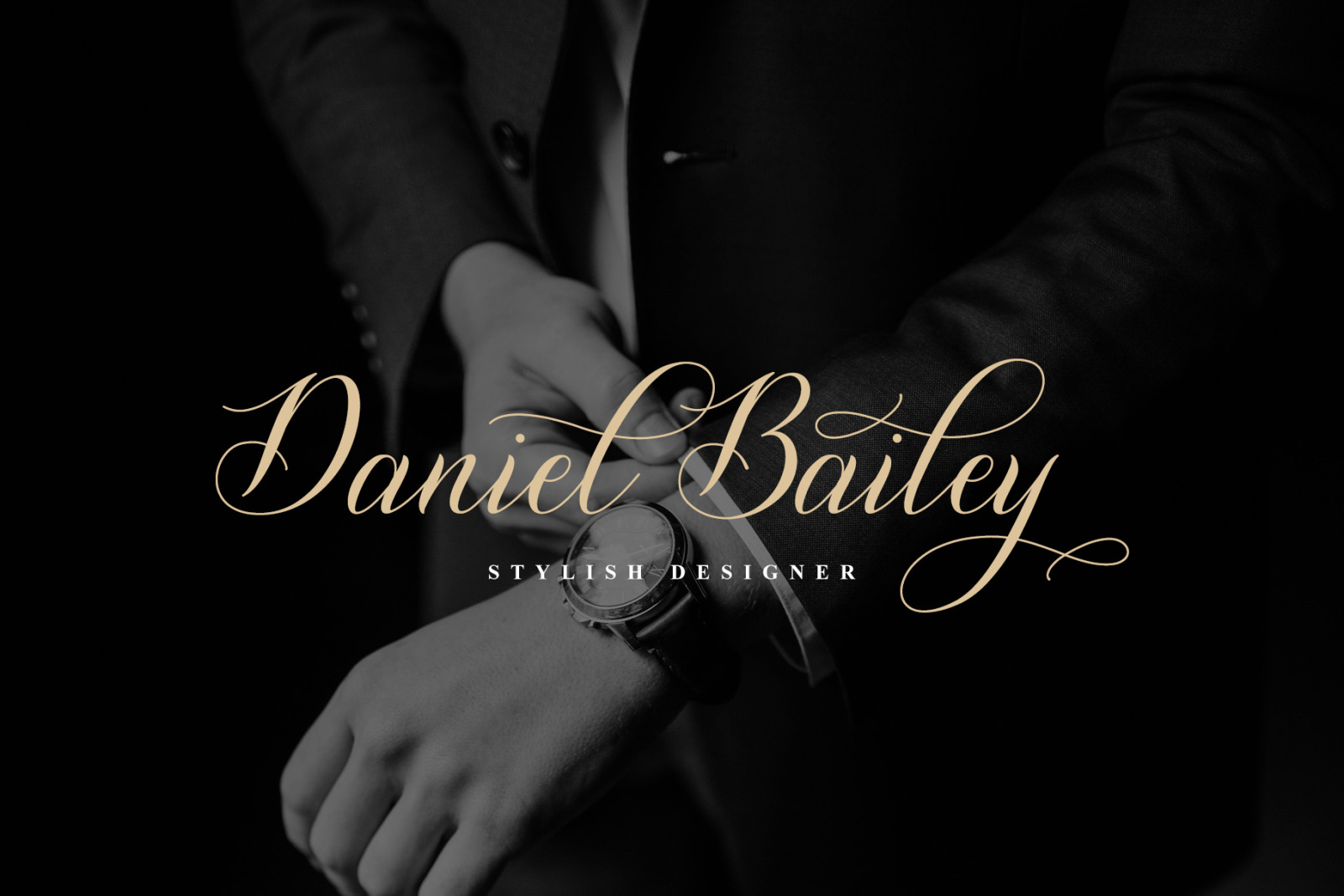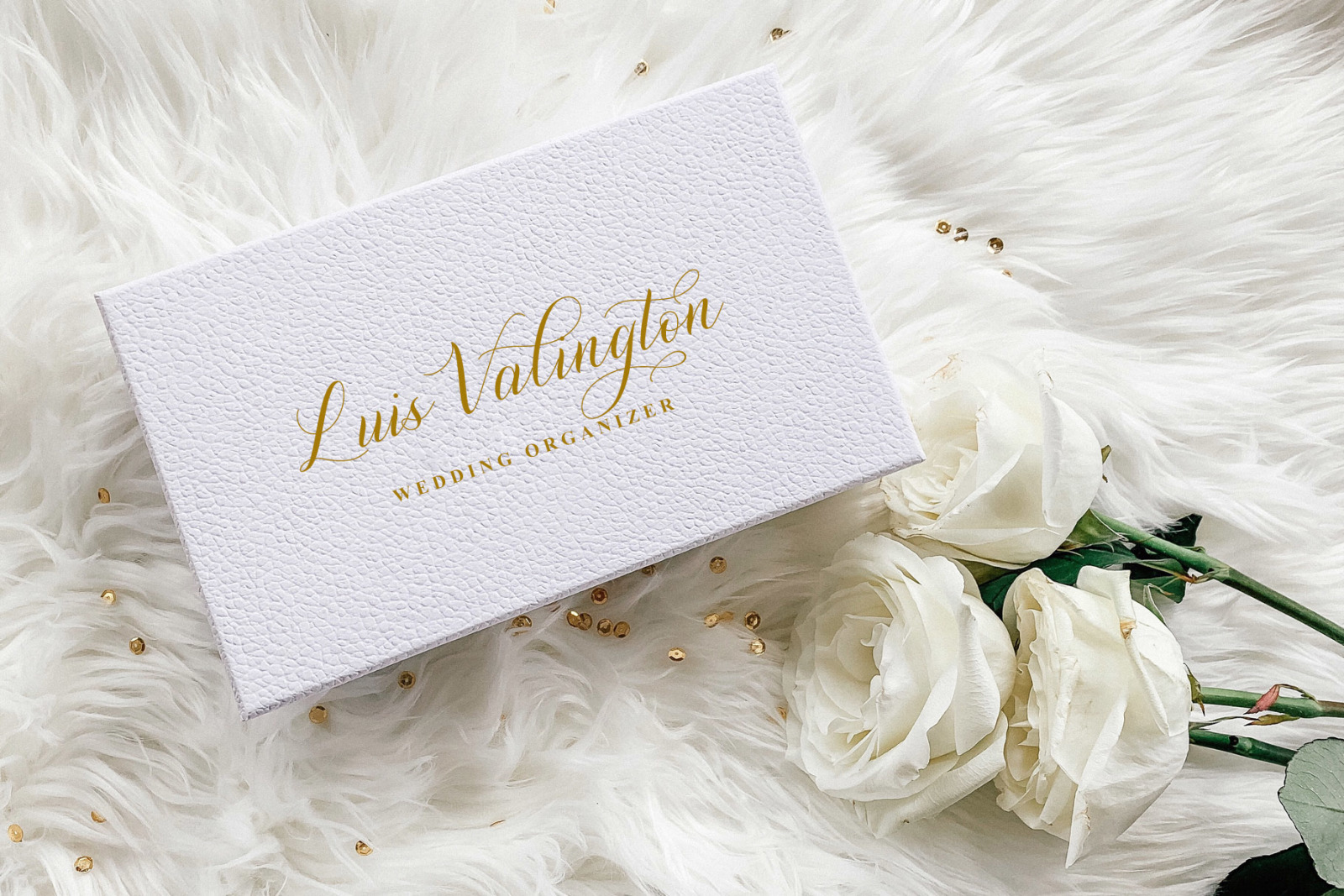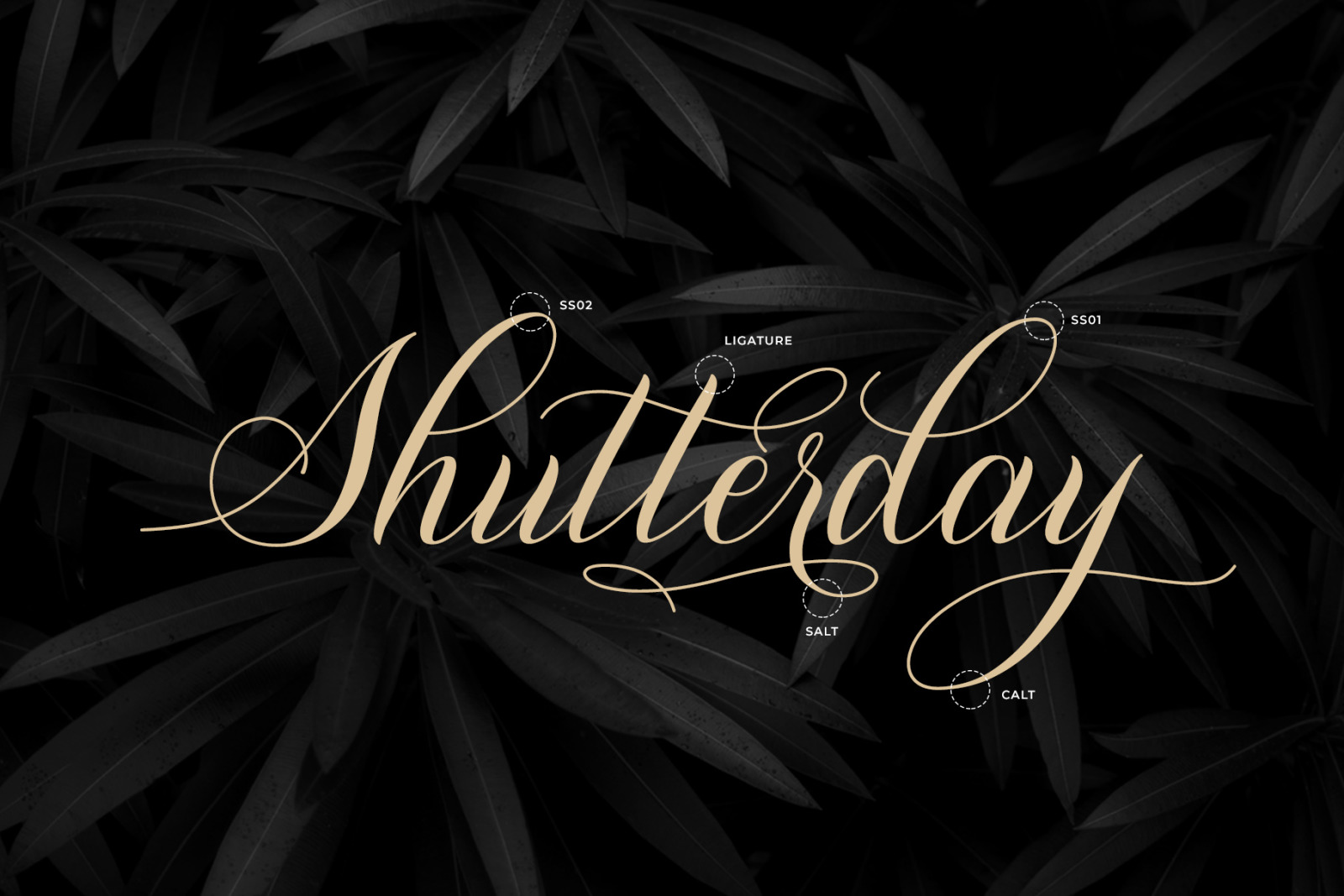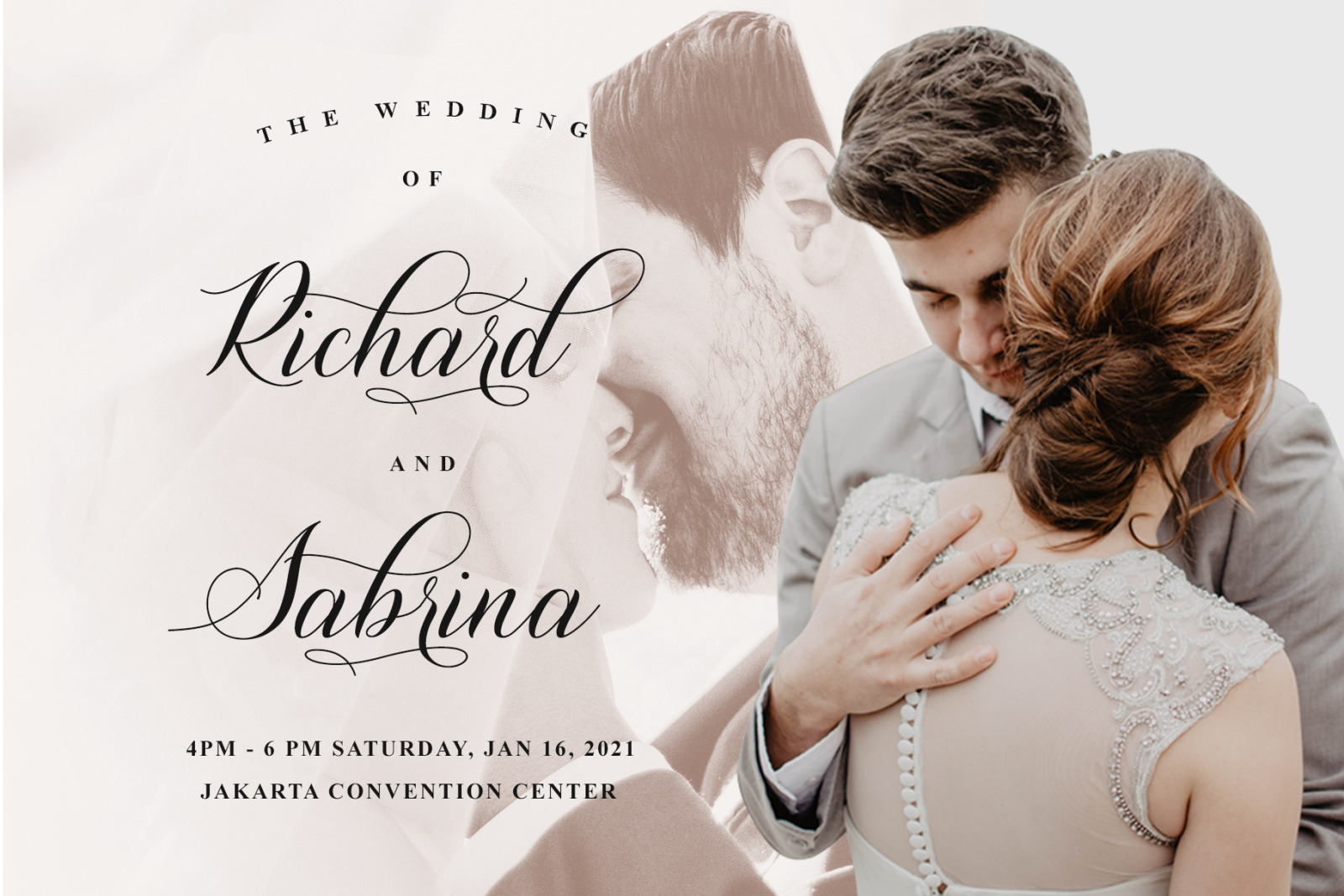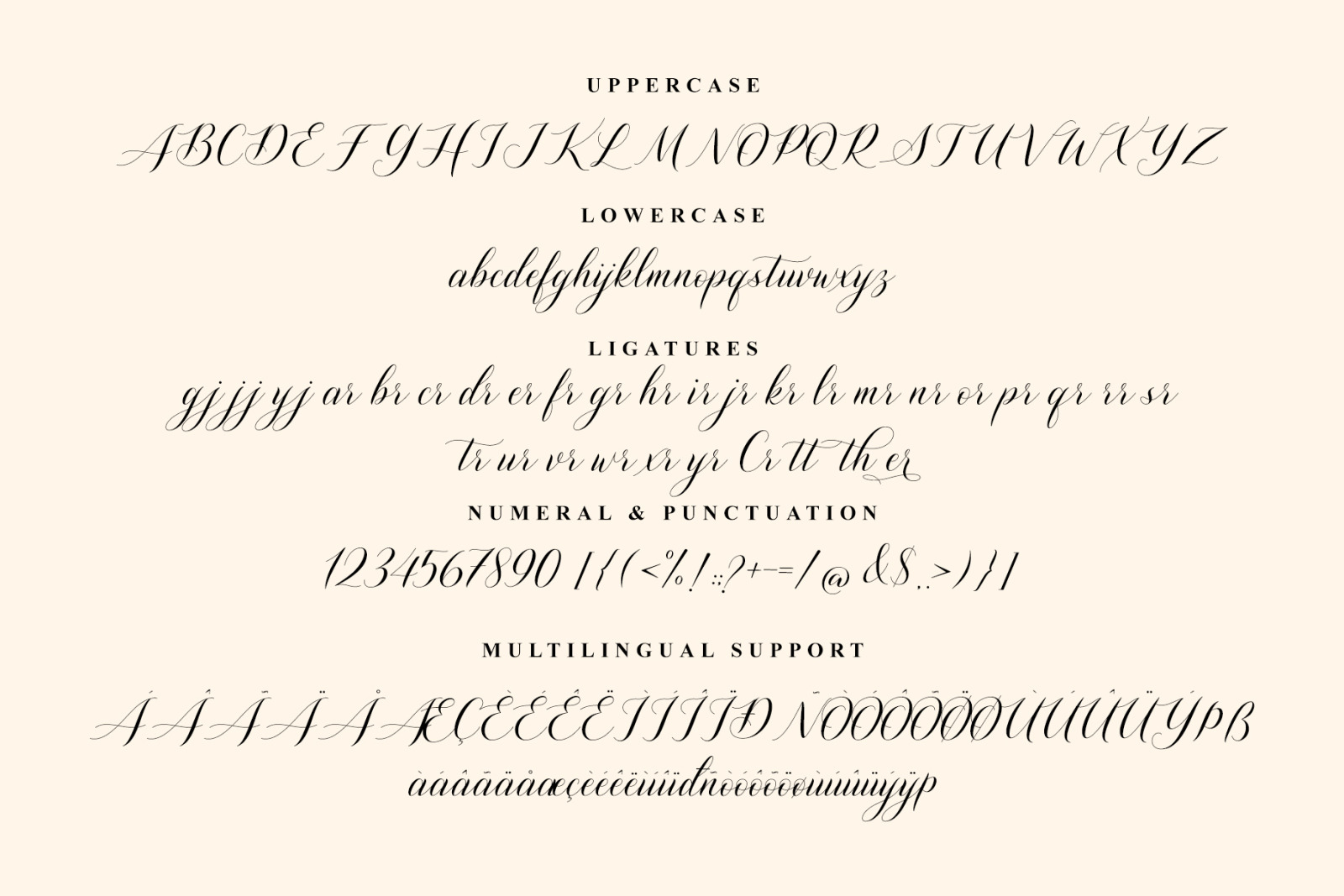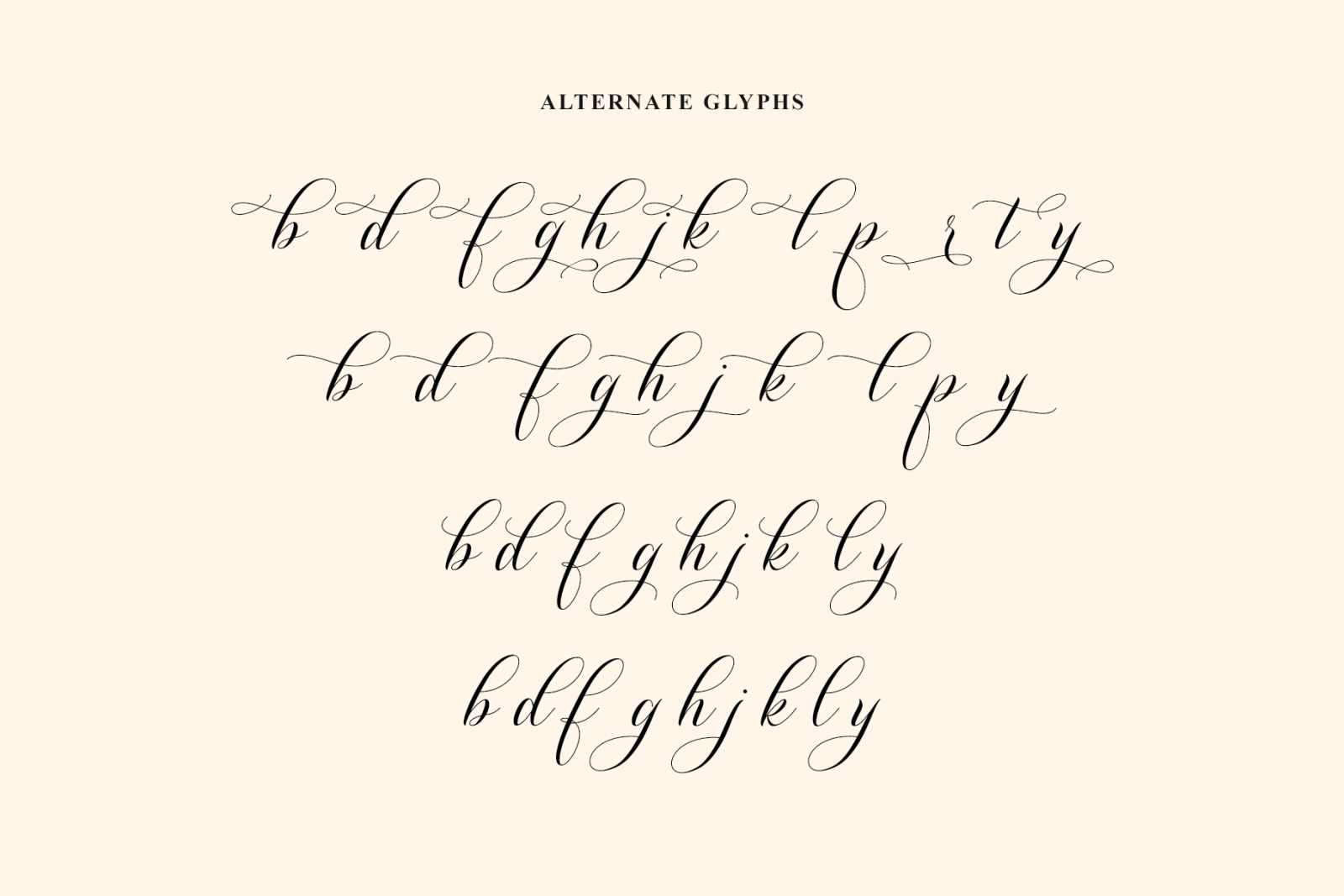
Shutterday - Calligraphy Font
Shutterday is a beautiful and refined script font, featuring a lovely flow. It has a classy, elegant and modern look that can be used for logos, branding, invitations, stationery, wedding designs, social media posts, materials marketing and much more! This font is PUA encoded which means you can access all of the amazing glyphs and ligatures with ease!
Shutterday Features :
- Uppercase and Lowercase
- Numerical and Punctuation
- Ligatures and Alternates
- Multilingual Language
This character set supports the following 21 languages: Afrikaans, Basque, Breton, Catalan, Danish, Dutch, English, Finnish, French, Gaelic (Irish, Scots), German, Icelandic, Indonesian, Irish, Italian, Norwegian, Portuguese, Saami (Southern), Spanish, Swahili, Swedish.